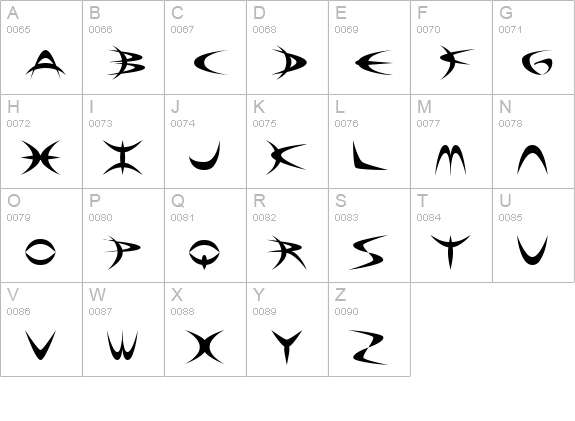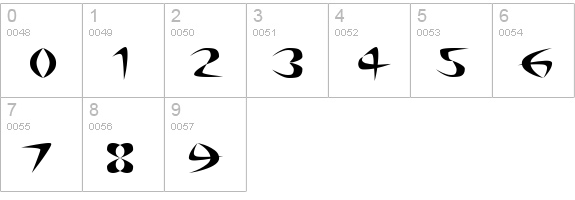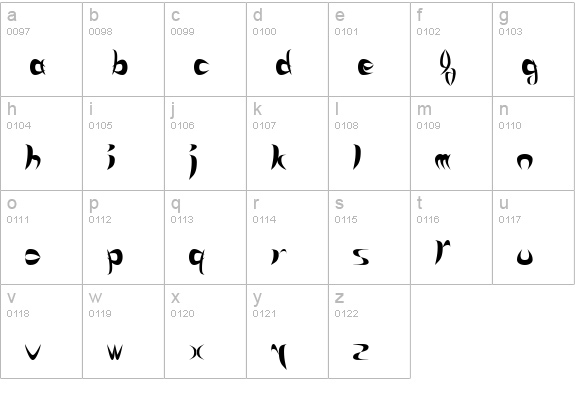
Riky Depredador Normal Font Details
Riky Depredador Normal is the standard, neutral variant in the Riky typeface family \xE2\x80\x94 well suited to general body text, paragraphs, and standard typographic work.
Riky Depredador Normal font is a stunning typeface that exudes power, elegance, and versatility. With its bold and captivating design, this font is perfect for making a statement in any design project. Its sharp and edgy letterforms add a modern and contemporary touch to any text. This font is not just visually appealing, but it also offers great functionality. Its clean and well-defined lines ensure legibility even at smaller sizes, making it suitable for both headlines and body text. Whether you're designing a logo, creating a poster, or crafting a website, Riky Depredador Normal font will undoubtedly elevate your work to new heights. One of the best features of Riky Depredador Normal font is that it is available for free. Yes, you read that right – this extraordinary font can be downloaded for free at FontsMarket.com. This means that not only do you get access to a high-quality and professionally crafted font, but you also get it without spending a penny. So why wait? Take advantage of this incredible offer and download Riky Depredador Normal font today. Whether you're a professional designer or a beginner, this font will undoubtedly enhance your creative projects. Don't miss out on the opportunity to add this remarkable font to your collection. Visit FontsMarket.com now and get ready to unleash your creativity with Riky Depredador Normal font.